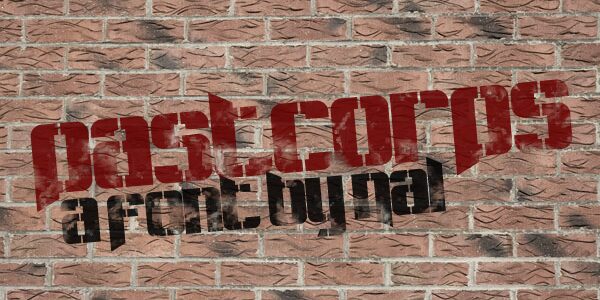
Pastcorps by Andrew McCluskey is a free military display font with massive, tightly fitted letters and an aggressive industrial silhouette. Sharp diagonal projections and abrupt horizontal cuts give the rounded forms a machined, almost armored edge.
Merchandise is a natural setting for its hard-edged construction, especially on streetwear, band graphics, and gaming artwork built around forceful mechanical imagery. It also suits event posters, where the repeated cuts can echo warning stripes, vehicle panels, and other details drawn from military or dystopian science-fiction themes.